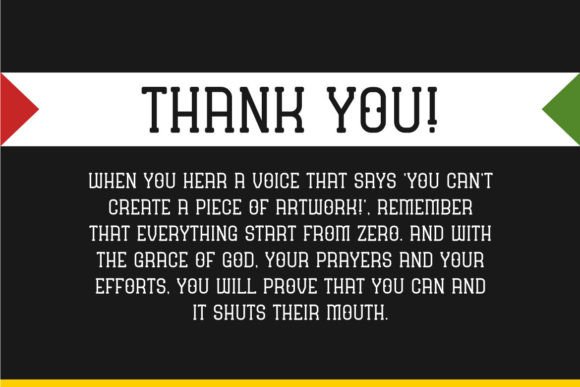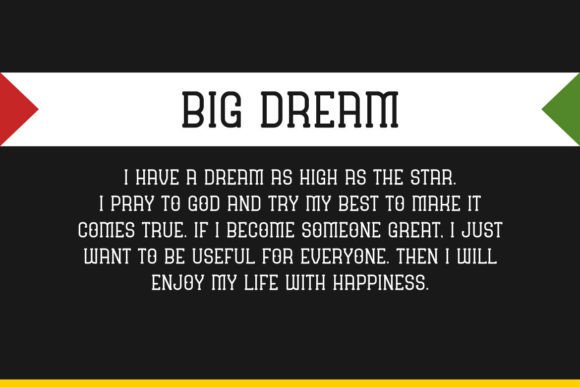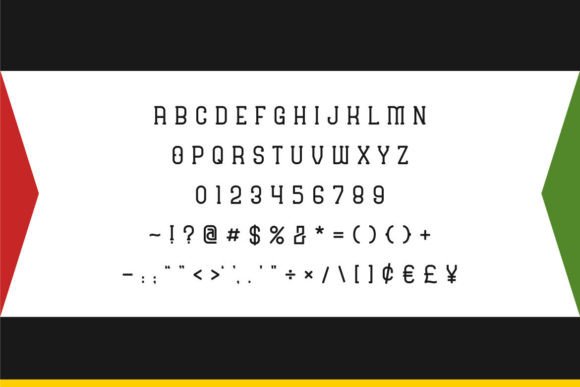
Introduction to Revolutioner Font
**Revolutioner** is a clean and modern font.
| 👤 Author | Mightyfire |
Revolutioner can be used in any work such as comic books, posters, schools, flyers, book titles, advertisements, social media content, logos, and many more .
Key Features of Revolutioner Font